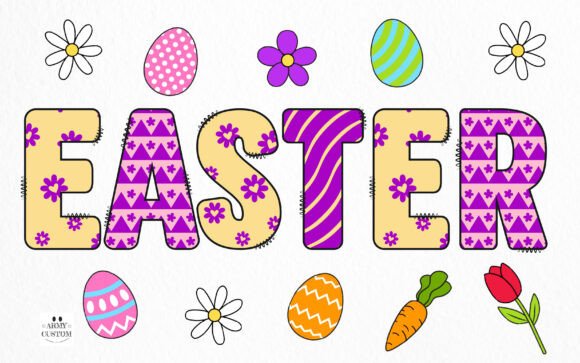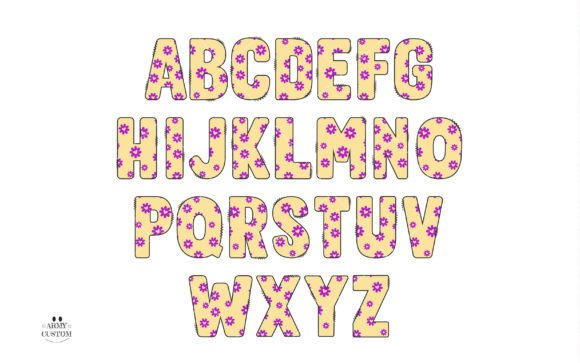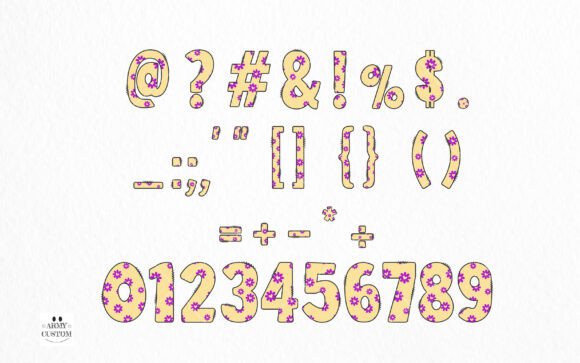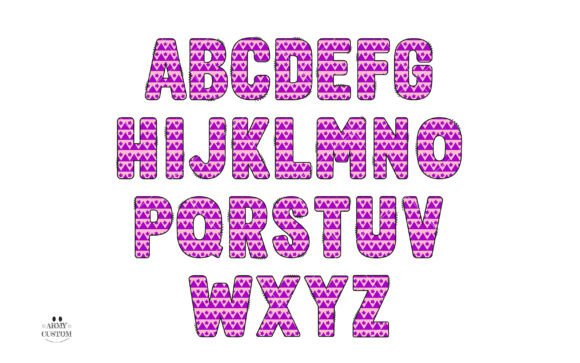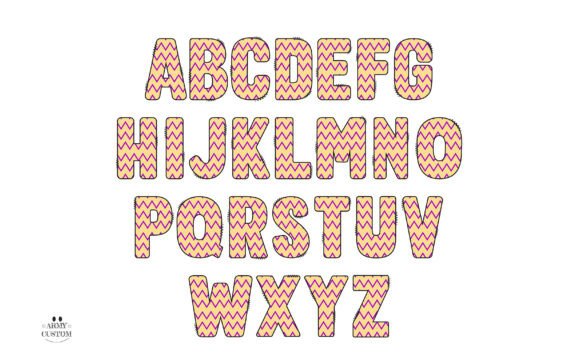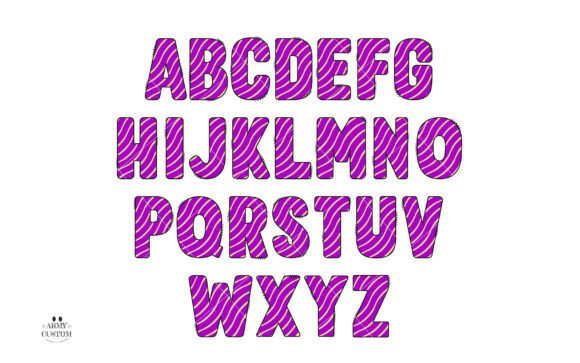
Welcome to the Magical World of Easter Bundle Font
The Easter Font Bundle No.16: A Game-Changer for Designers
This font bundle is more than just a collection of fonts – it’s an artistic tool that embodies the spirited vision of Easter celebrations. The “Easter Font” effortlessly transcribes your ideas into delightful visual narratives, infusing your designs with a lively, vibrant aesthetic. It’s not merely a font, but a gateway to a world of creative possibilities, precisely encapsulating the thrilling ecstasy of Easter in every stroke.
- ✨ The font’s rhythmic charm and joyful exhilaration perfectly capture the essence of Spring and Easter celebrations.
- ✅ The font is incredibly versatile, making it suitable for a wide range of design projects, from greeting cards to social media graphics.
- 💫 The OpenType features and glyphs offer endless creative possibilities, allowing you to truly customize your designs.
- 🤔 Some users may find the font a bit too ornate for certain design projects, such as minimalist branding or professional corporate materials.
- ⚠️ The font’s Easter-themed design may not be suitable for projects that require a more neutral or generic aesthetic.
The Designer Inspiration Behind the Easter Font Bundle
The Easter Font Bundle was created by a talented designer who wanted to capture the essence of Easter celebrations in a font. Inspired by the vibrant colors and joyful atmosphere of Easter, the designer poured their heart and soul into creating a font that would bring happiness and creativity to designers and crafters alike.